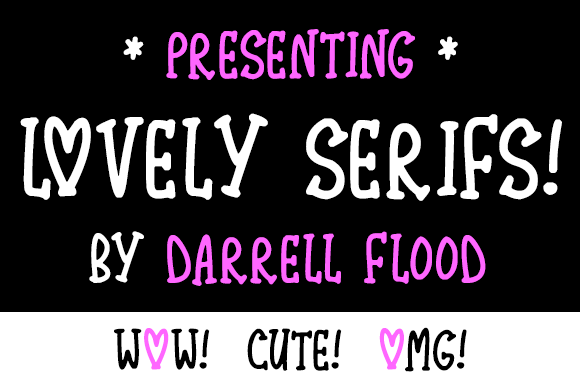
Lovely Serifs
Lovely Serifs Font
Lovely Serifs is a cute, quirky serif font with heart shaped “o” characters. This handwritten font is ideal for whimsical love letters!